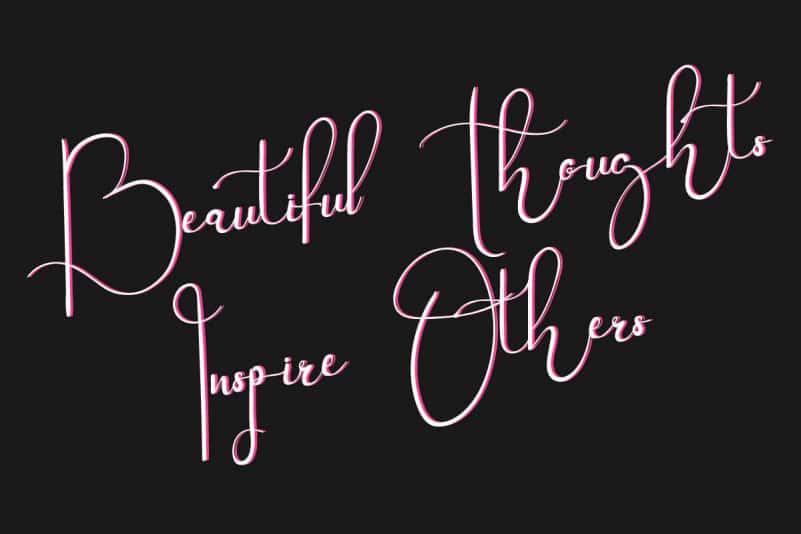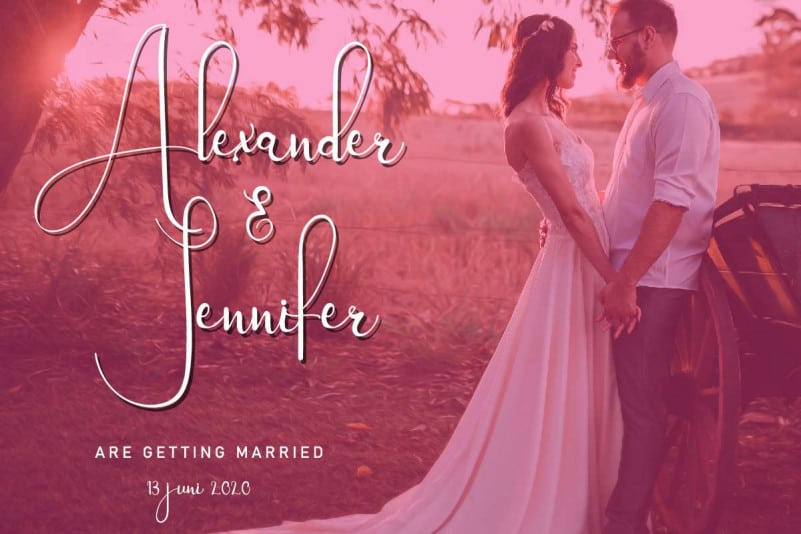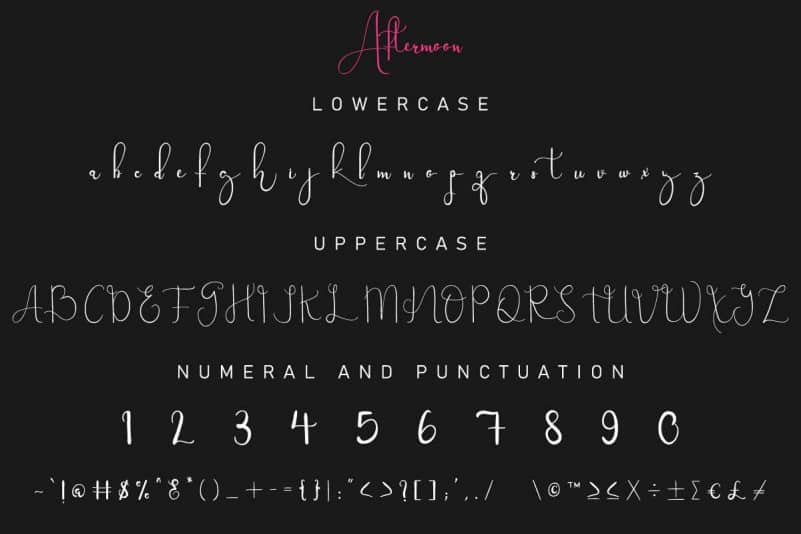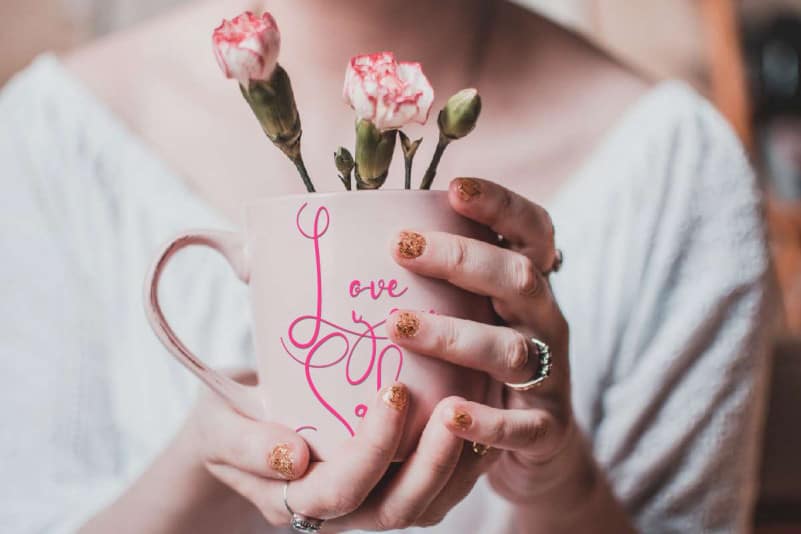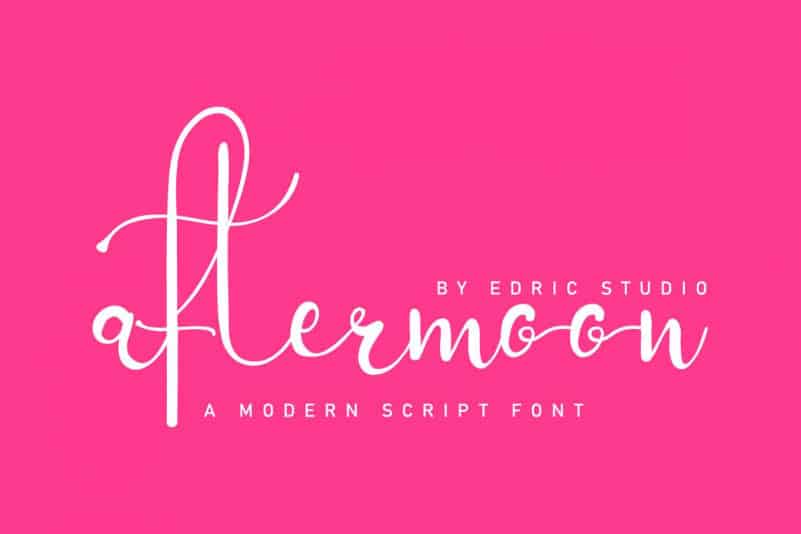
Aftermoon Calligraphy Font
Aftermoon Calligraphy Font is an exclusive calligraphy script typeface with brush style. This font has a stunning characters set, perfectly managed with well spaced and kerning. The theme style of this font will elegant, vintage, stylish, sophisticated and classic brush calligraphic style. You wont find any where else, the font like Aftermoon Calligraphy Font
Aftermoon Calligraphy Font will be great for any projects including : branding, logo, stationery, business card, signage, flyer, brochure etc. Almost all industries will be match for this typeface: wedding, events, real estate, architect, law firm, florist, gardening, makeup artist, travel, hotel, musician etc